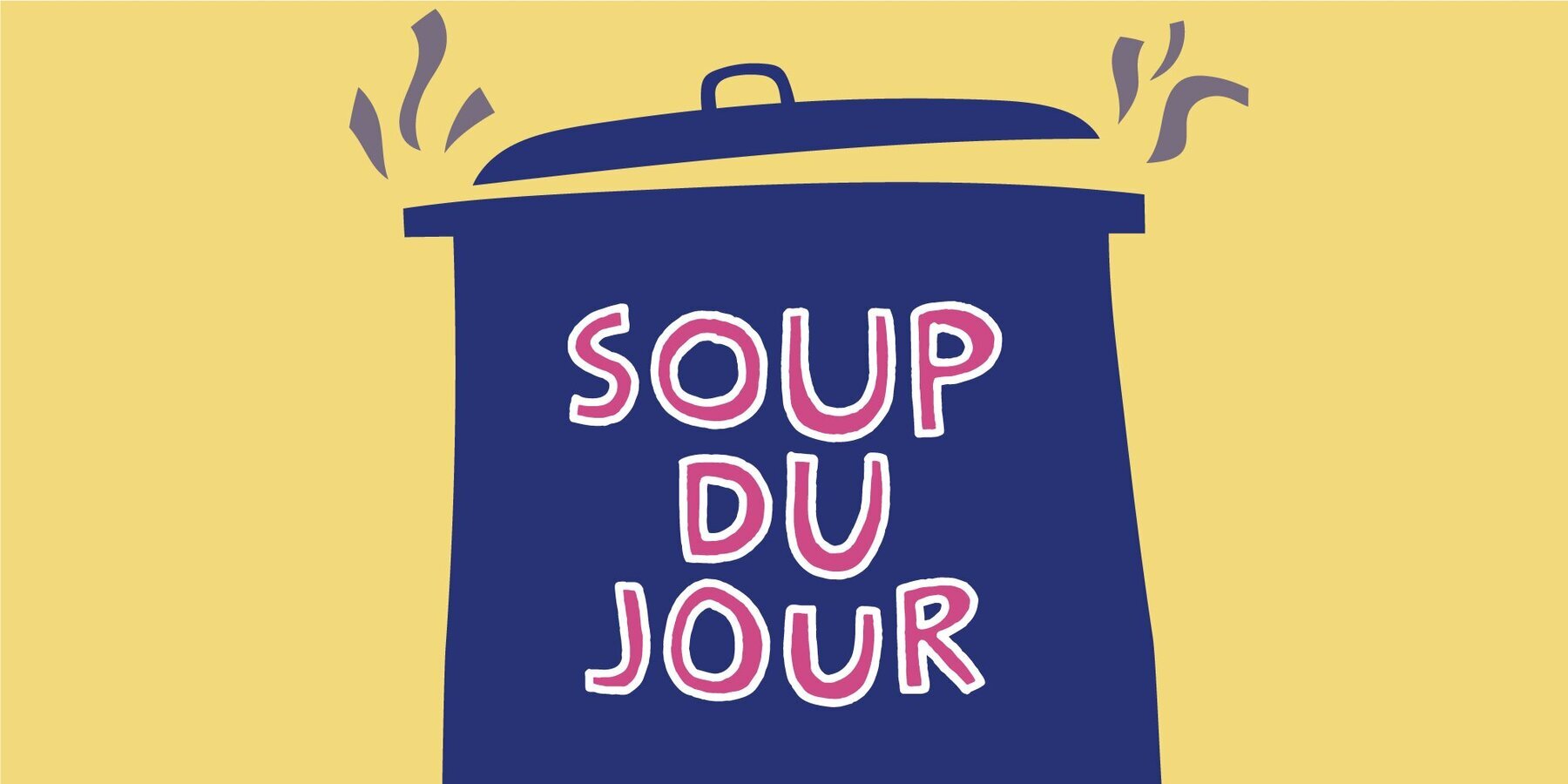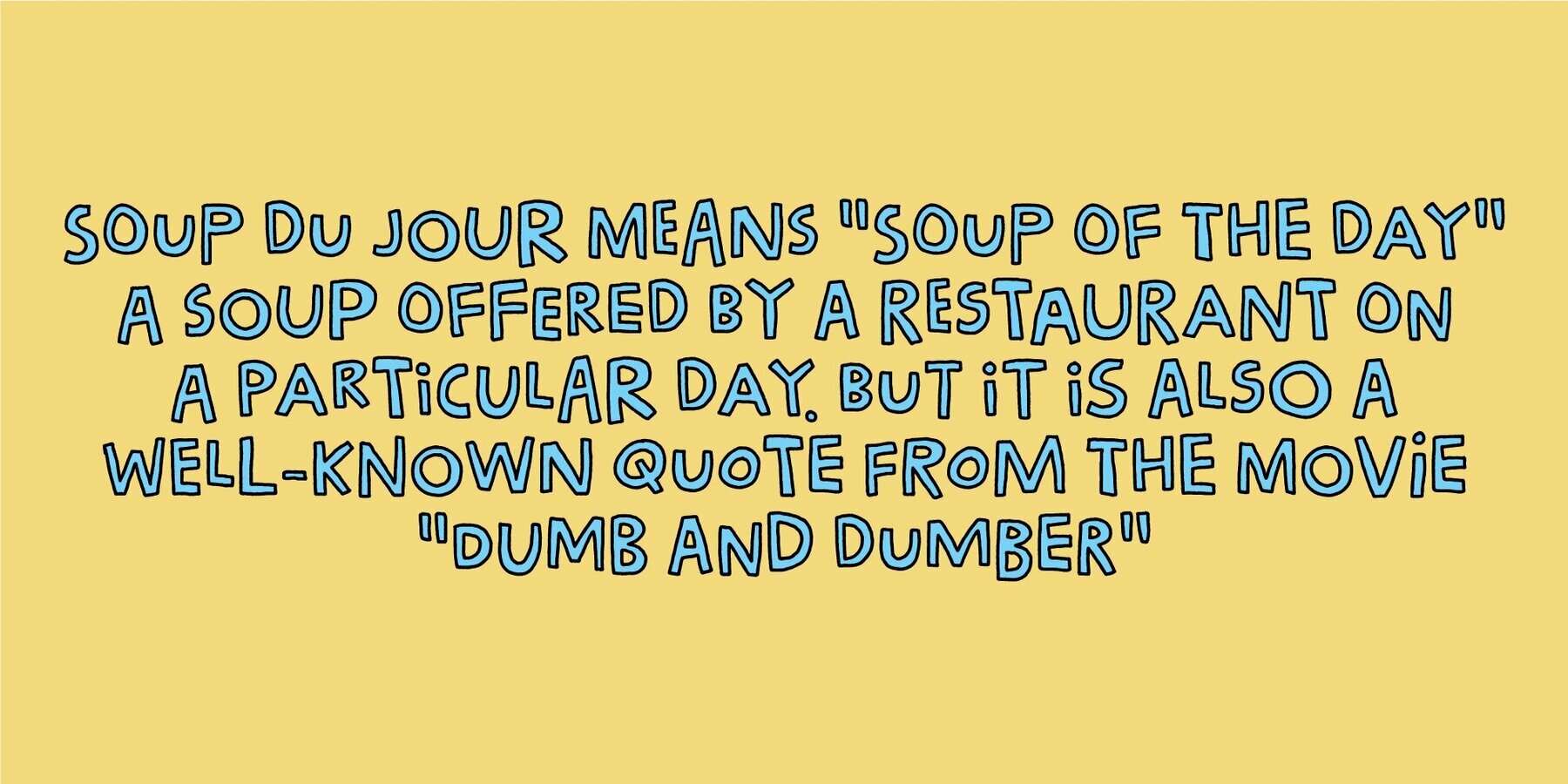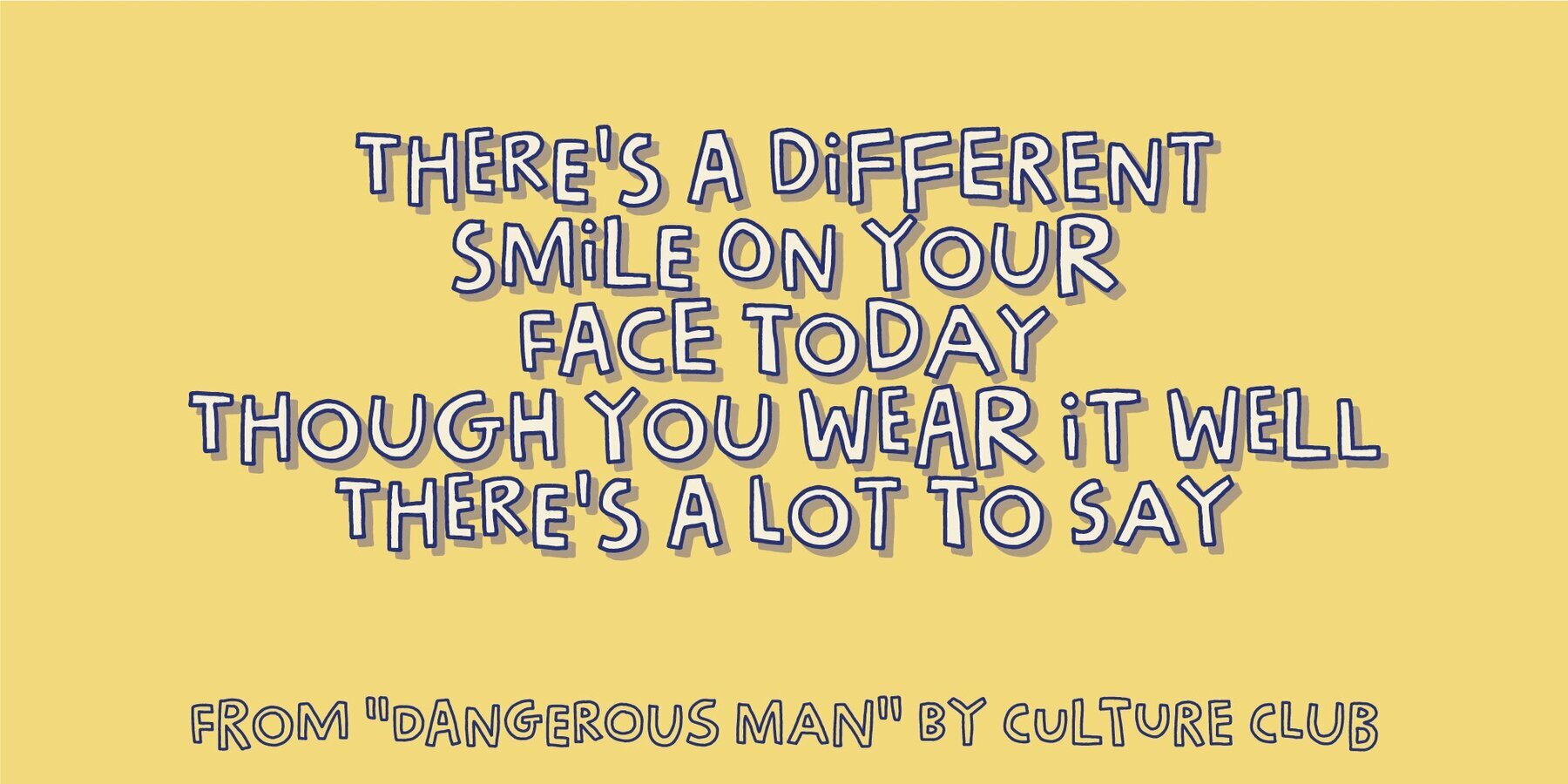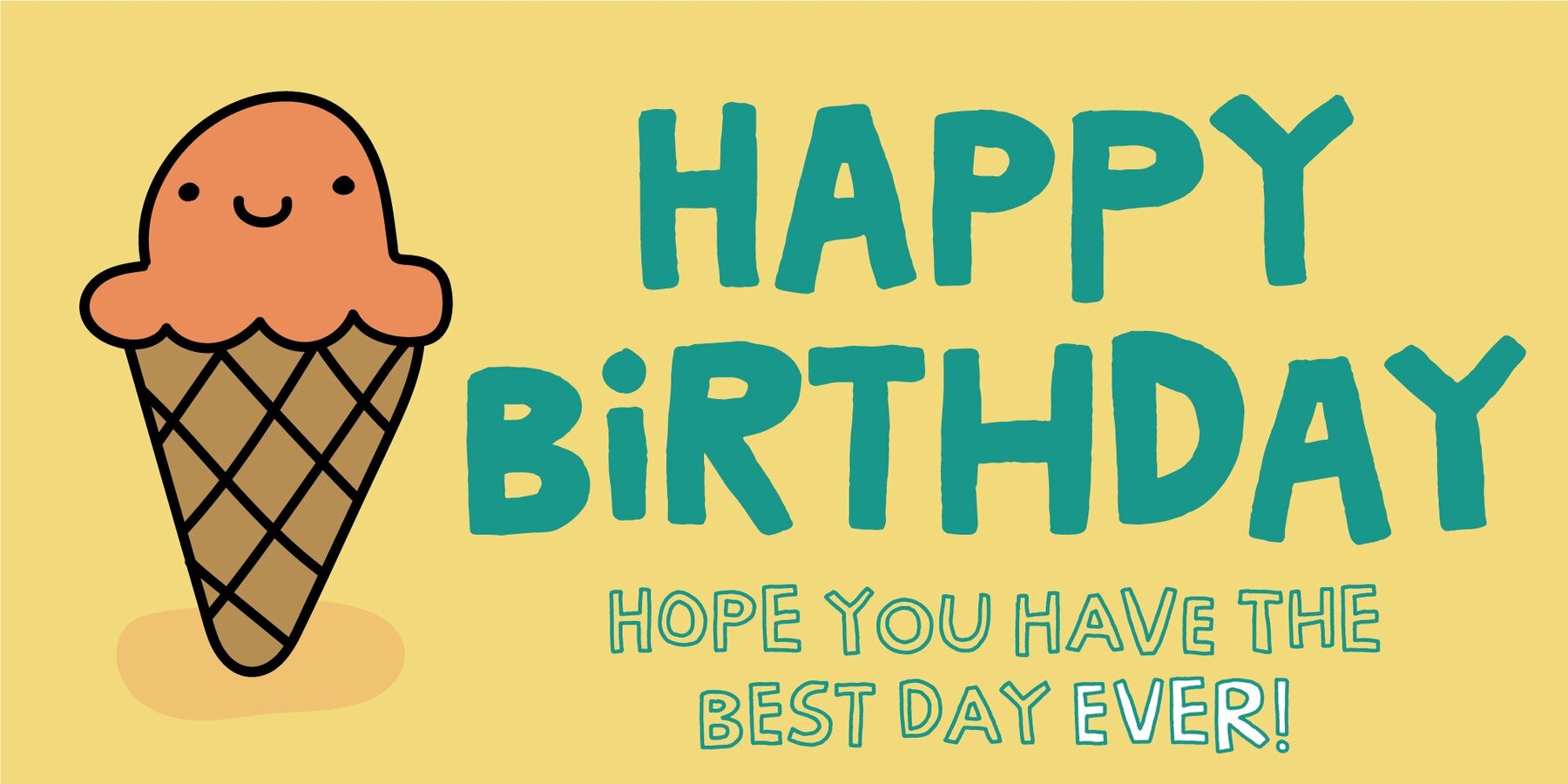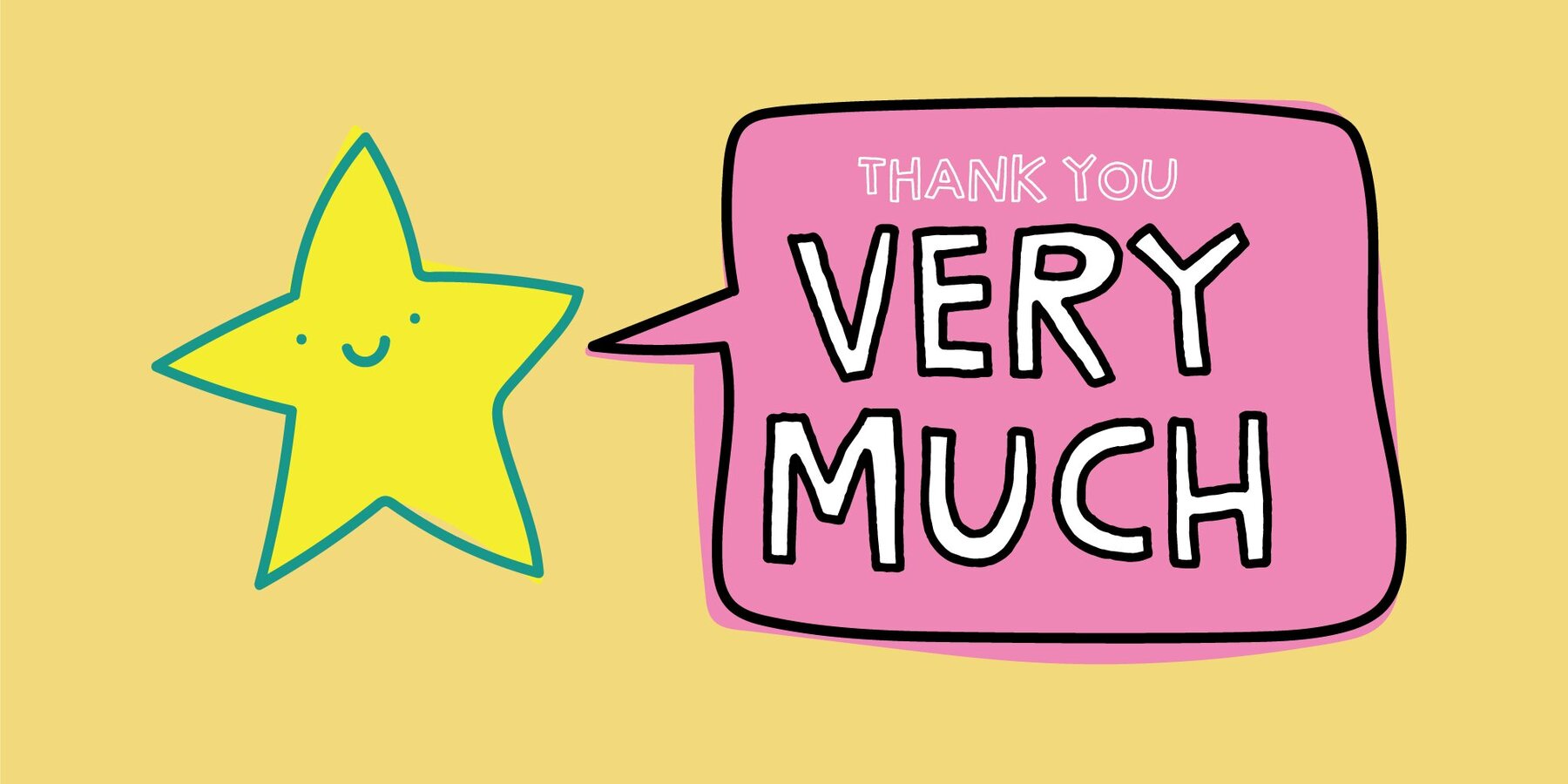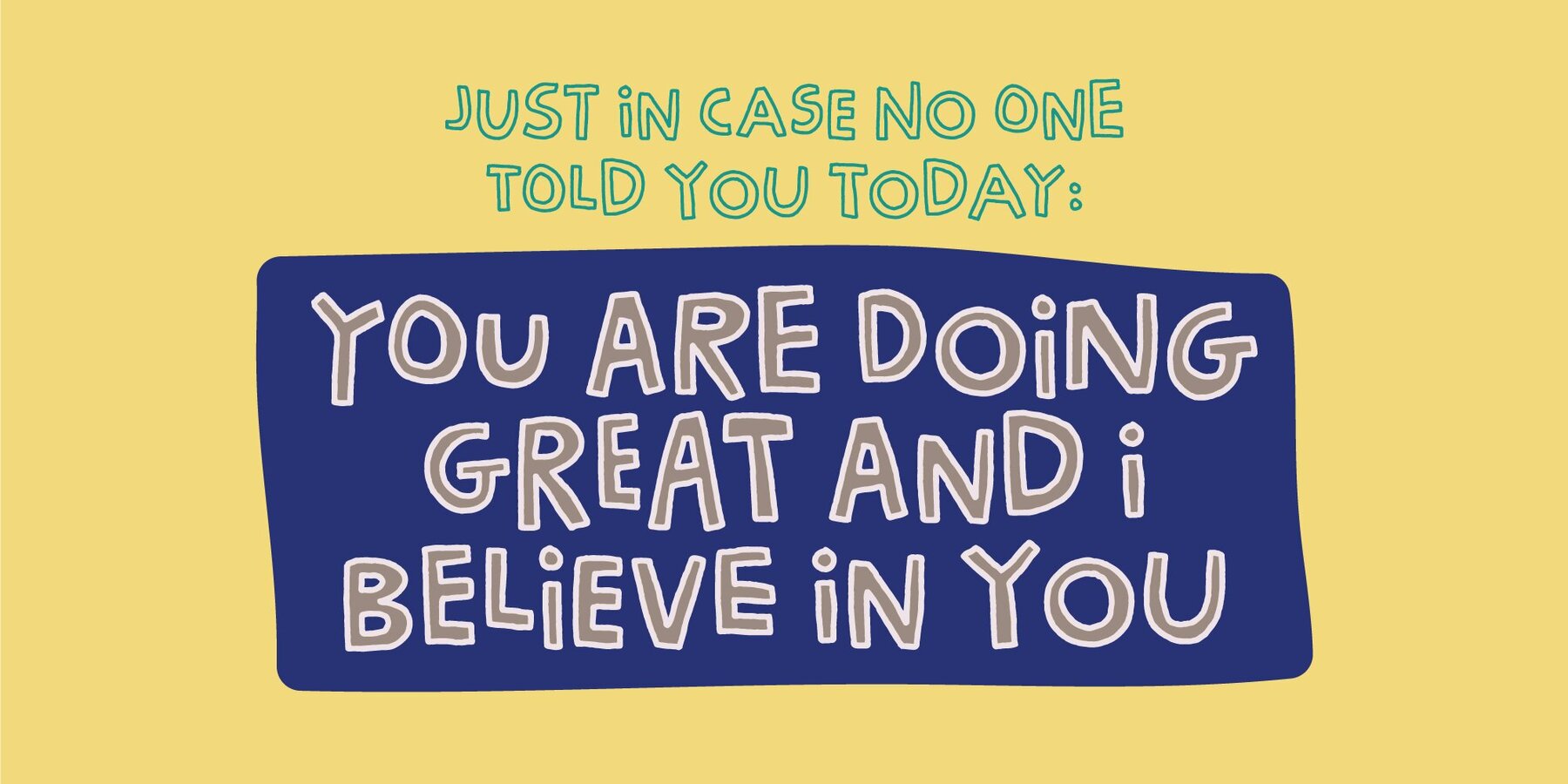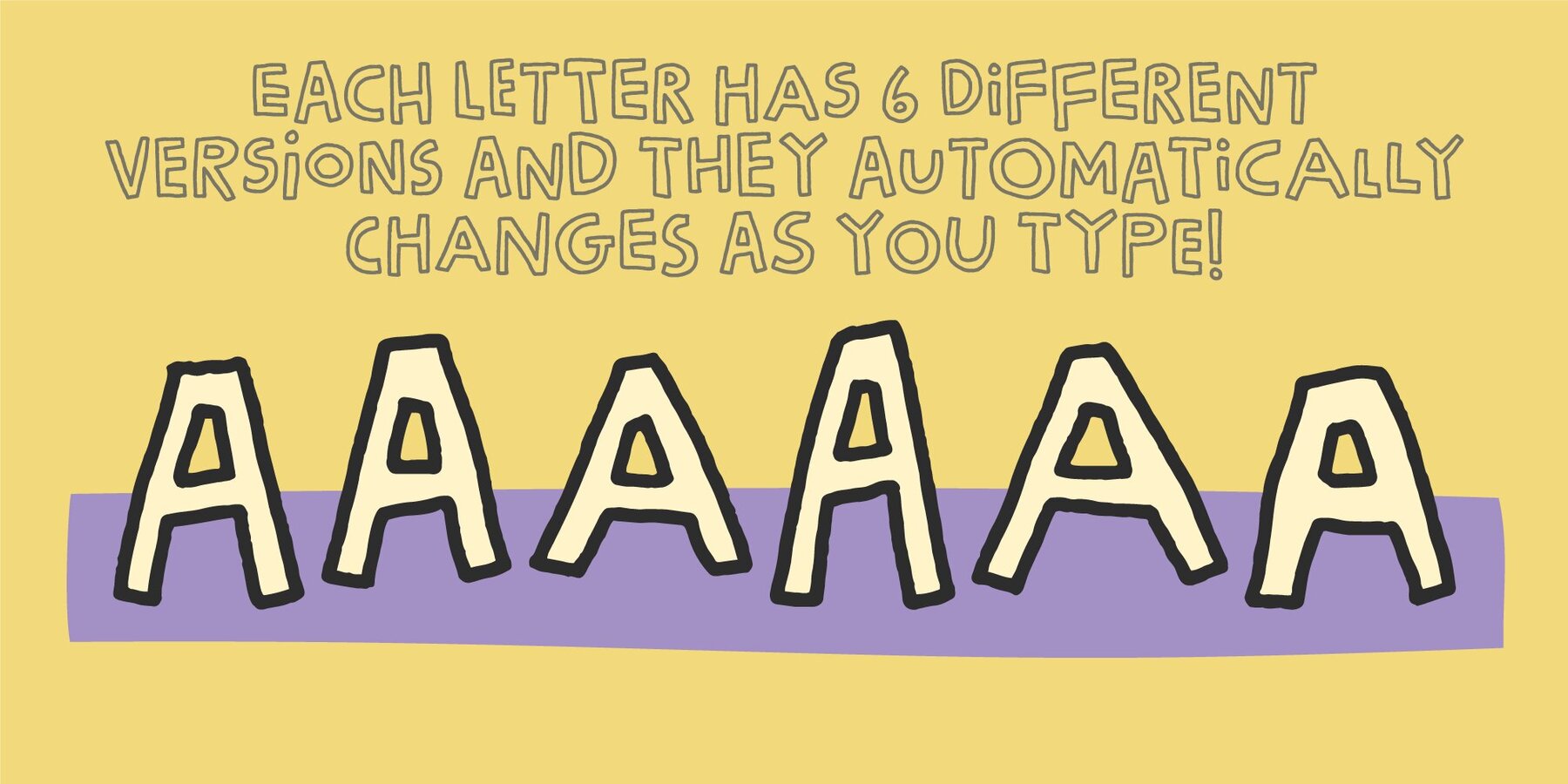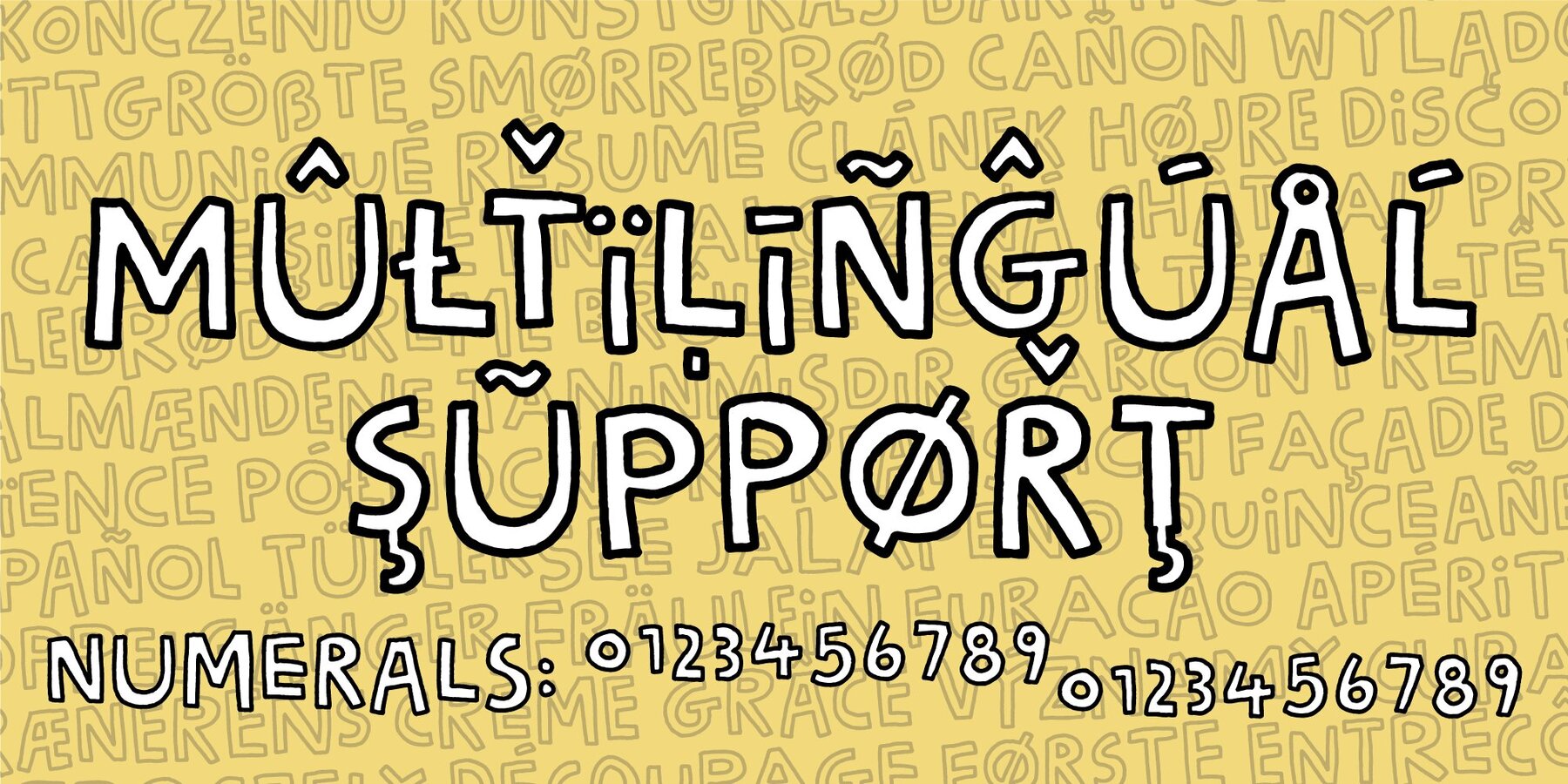
Soup Du Jour Font
Soup Du Jour Regular
Soup Du Jour Inside
Soup Du Jour Solid
"Soup Du Jour" is French and simply means "Soup Of the Day" - may not sound interesting, but I can tell you that I have had several tasty soup of the day served. I wanted to make a font that resembles that feeling of not really knowing what you get served, but you got a feeling that it is something good! The font has got 6 different versions of each letter, and they automatically changes as you type - it makes your text organic and lively, and probably quite tasty too! :) "Soup Du Jour" is also a well-known quote from one of my favourite movies: "Dumb and dumber"